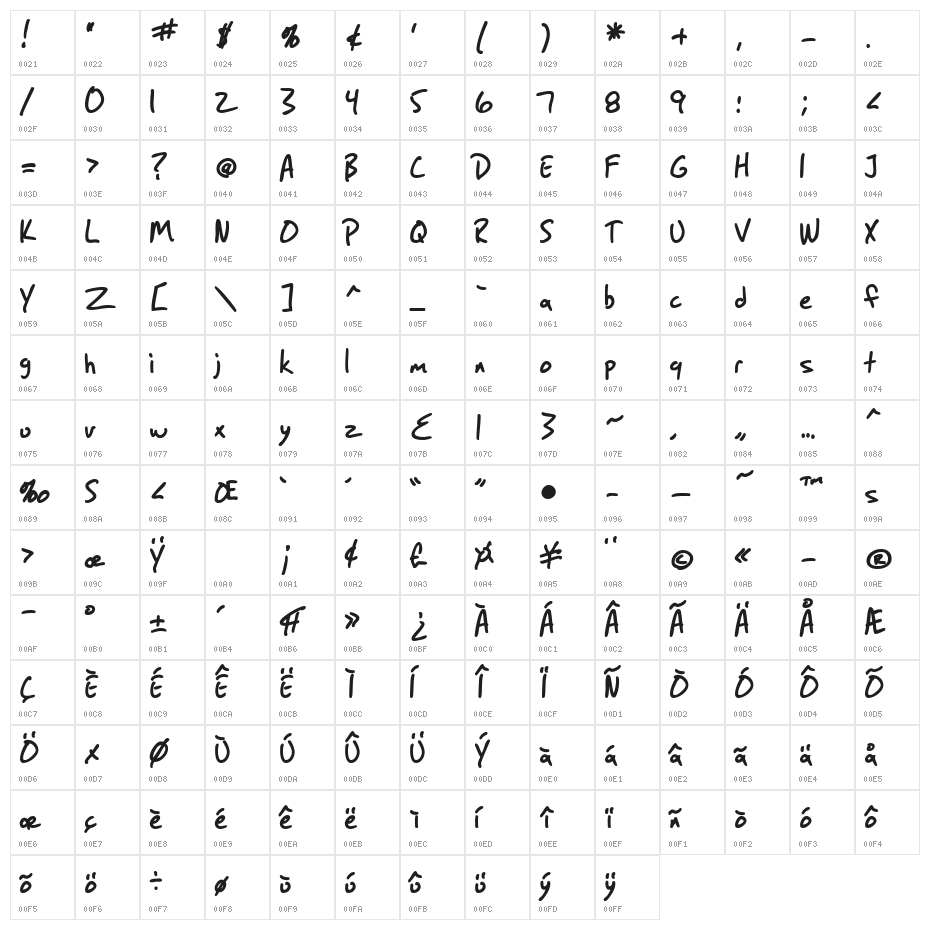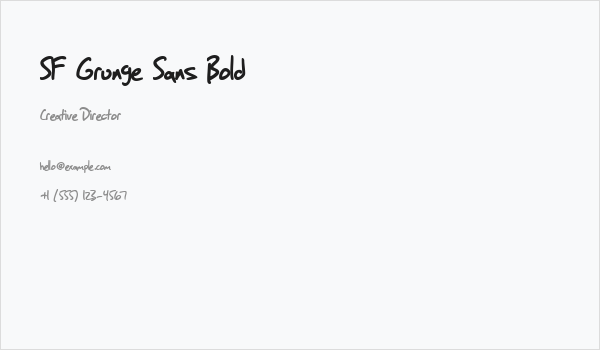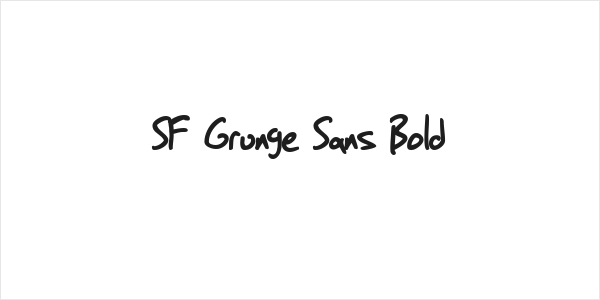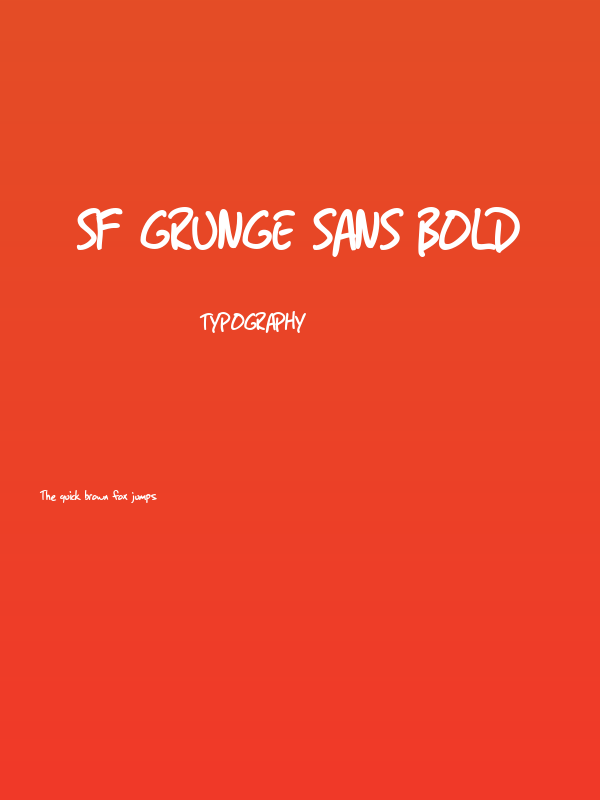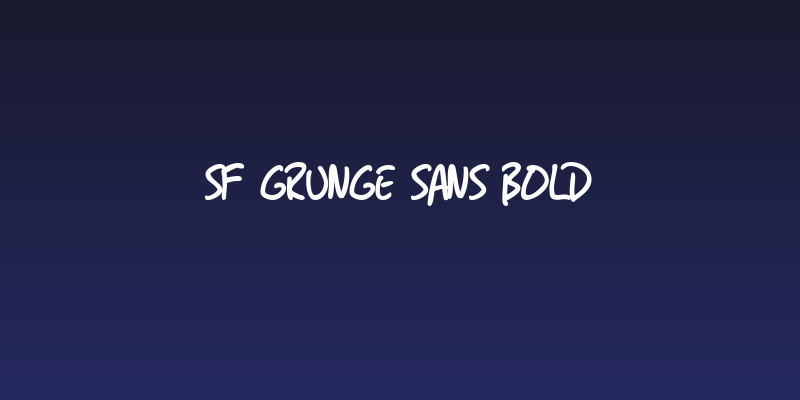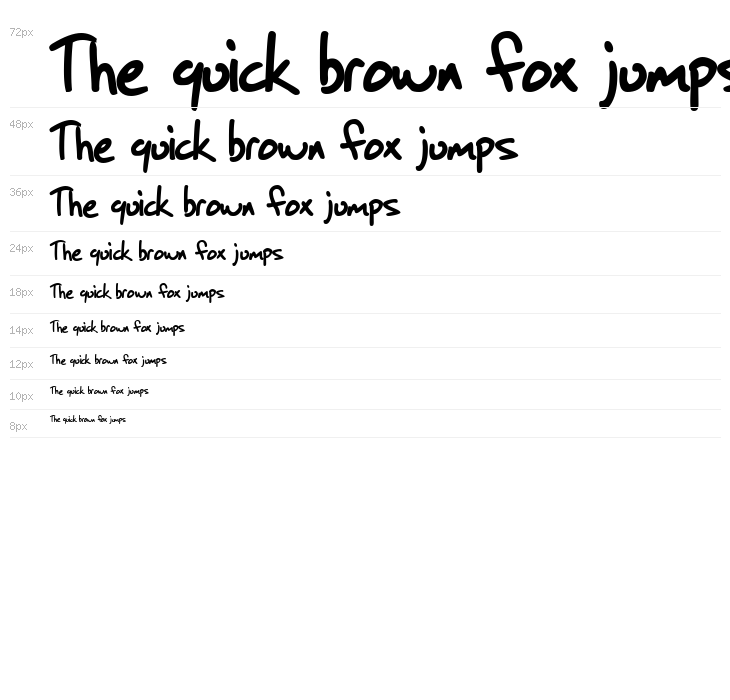
SF Grunge Sans Bold Font
SF Grunge Sans Bold Description
This font exudes a bold, handwritten style with a casual and informal appearance. The characters are slightly irregular, giving it a grunge aesthetic that feels both dynamic and approachable. The strokes are thick and consistent, providing a strong visual impact. The uppercase and lowercase letters maintain a cohesive look, while the numerals and special characters complement the overall style. Its playful yet assertive nature makes it suitable for projects that require a touch of personality and creativity.
| Proposed Projects | Ideal for posters, album covers, social media graphics, and branding that seeks a casual yet impactful look. |